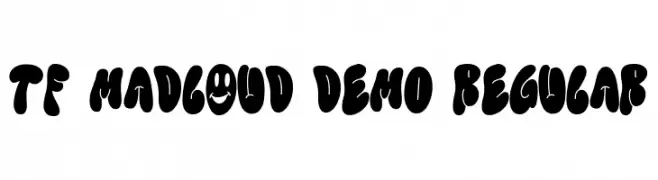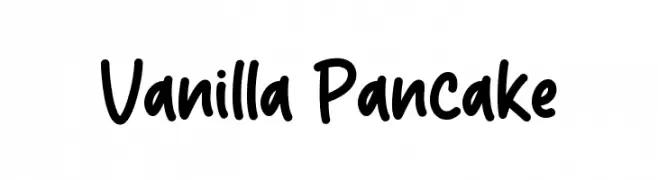
A bold, decorative font with heart-shaped cutouts in each character.
A vintage, monospaced slab serif font with a typewriter style and distressed texture.
A modern, dotted font with a geometric and digital style.
A bold, artistic font with dynamic curves and strong lines.
A whimsical, decorative font with characters encased in swirling shapes.
A bold, rounded, playful display font with heavy strokes.
A flowing, cursive script font with elegant, connected characters.
Graffiti-style, bold, urban font.
Graffiti-style decorative font with heart outlines.
A bold, geometric font with playful and dynamic shapes.
A bold, decorative font with vintage detailing and a Western-inspired style.
A bold, bubble-like graffiti font with a playful and dynamic style.
A bold, graffiti-inspired font with rounded, bulbous characters and a playful urban style.
A bold, playful font with rounded, bubbly characters ideal for creative projects.
A playful, decorative font with circular embellishments and consistent bold strokes.
Bold, modern sans-serif font.
Bold italic sans-serif font with a modern style.
Modern, light italic sans-serif font.
A modern, light sans-serif font with minimal contrast.
A bold, distressed font with a textured, vintage stamp-like appearance.
A bold, decorative font with intricate detailing and a strong presence.
Intricate geometric patterns with bold lines, ideal for decorative borders.
A bold, dynamic handwritten font with brush-like strokes and a playful style.
A traditional Blackletter font with ornate, gothic letterforms and high contrast.
A modern, geometric sans-serif font with clean lines and balanced proportions.
A bold, handwritten-style font with a dynamic and expressive brush-like texture.
A bold, modern sans-serif font with clean lines and strong presence.
A bold, playful script font with a casual handwritten style.
A bold, block-like font with a strong, modern presence.
A bold, playful font with thick, rounded strokes and a whimsical style.
A bold, distressed font with a grunge texture and strong visual impact.
A bold, playful font with a comic-like, whimsical style.
A playful, bold, and italicized font with dynamic curves and a whimsical style.
A playful, handwritten font with tall, narrow letters and smooth curves.